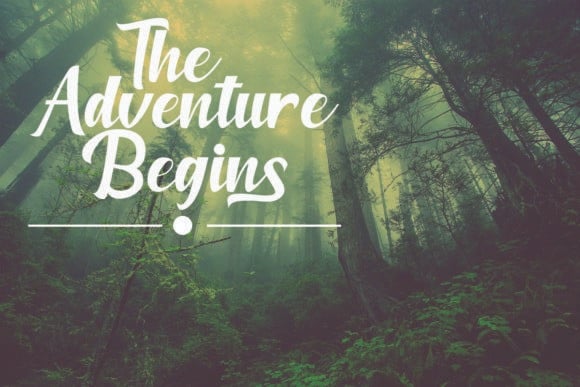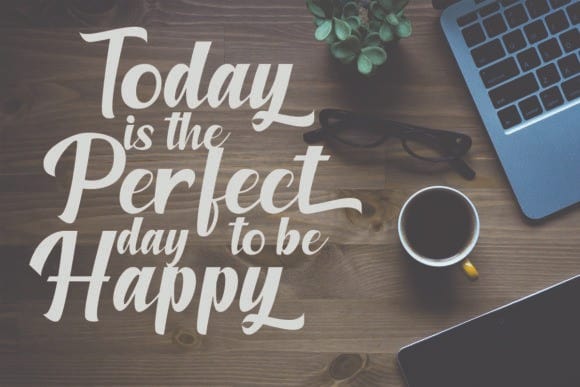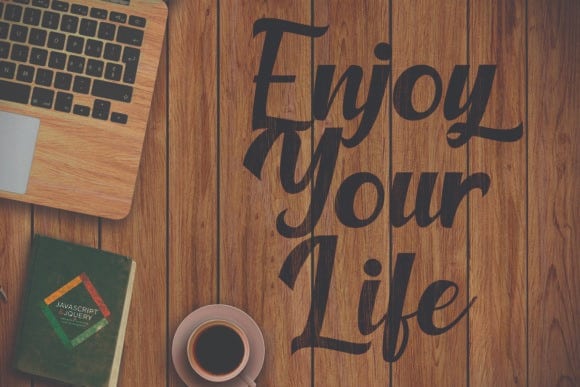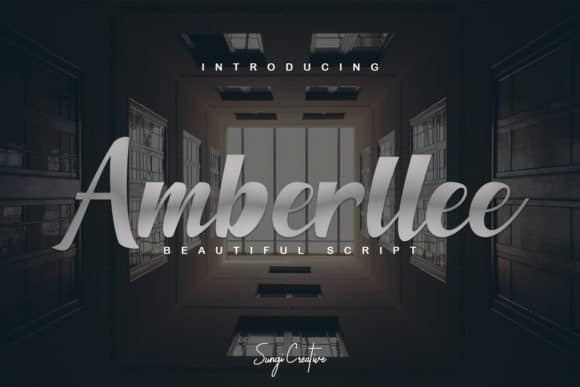
Hello everyone. Amberllee Script Font is an exciting script font with brush style. It’s designed and shared by SungiCreative. This beautiful script can make your text appear elegant, luxurious, and modern! It has sweet and well balanced characters and as a result, it matches a wide pool of designs. Add it to your most creative ideas and notice how it makes them come alive!